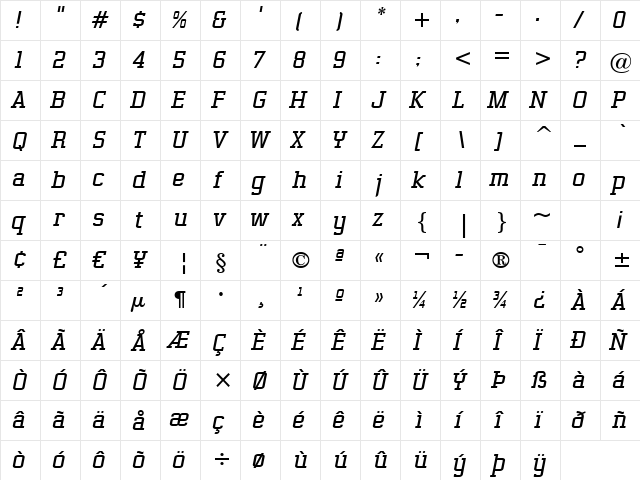
Gasoline Serif BTN Lt Oblique Font Preview
Design Context for Gasoline Serif BTN Lt Typeface
Gasoline Serif BTN Lt brings classic typographic sensibility to the table — its serifs and measured letterforms reflect centuries of print heritage. The dynamic lean of this cut emphasises speed and emphasis in any layout. Its slender proportions lend an understated elegance to any composition.